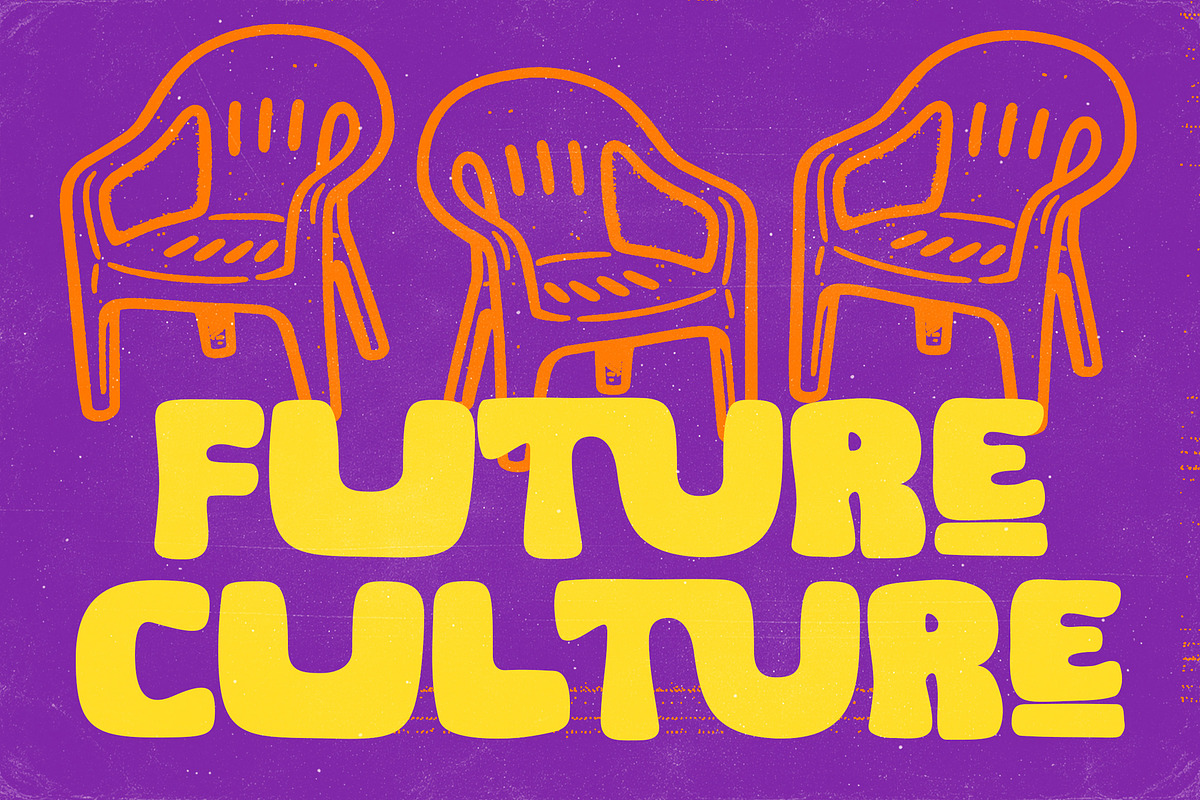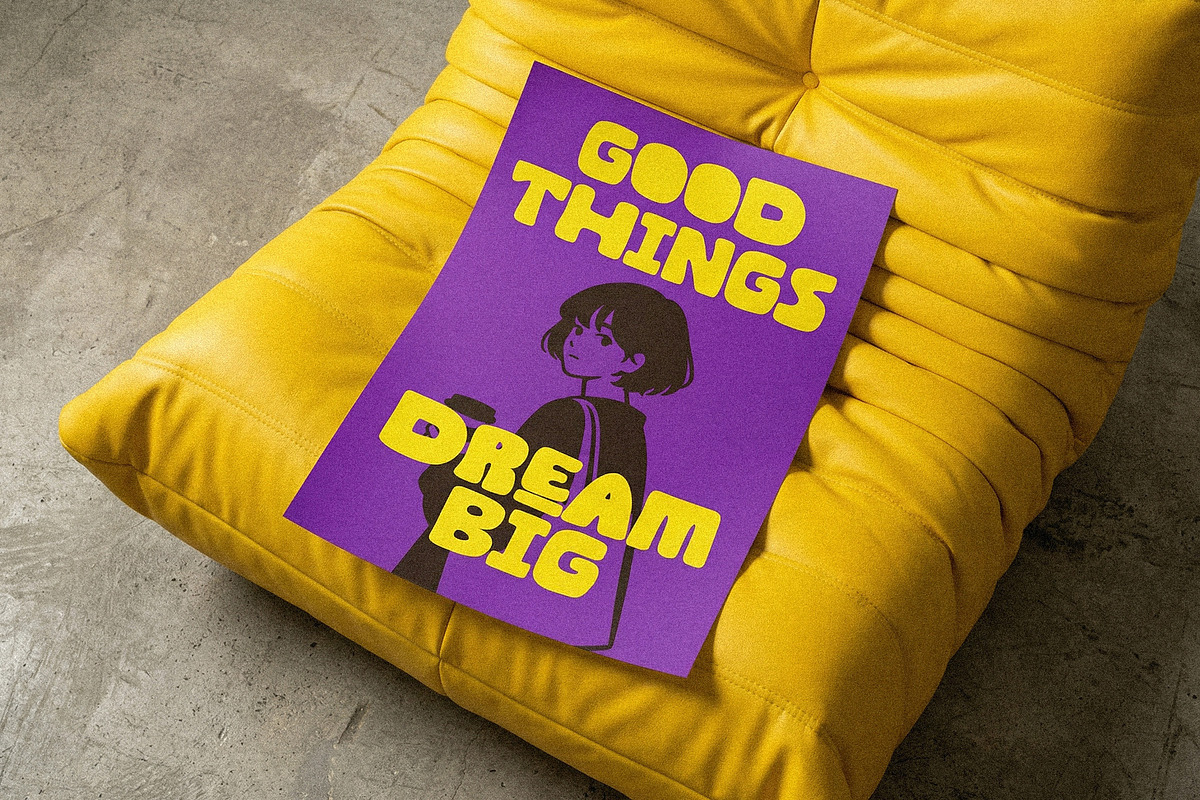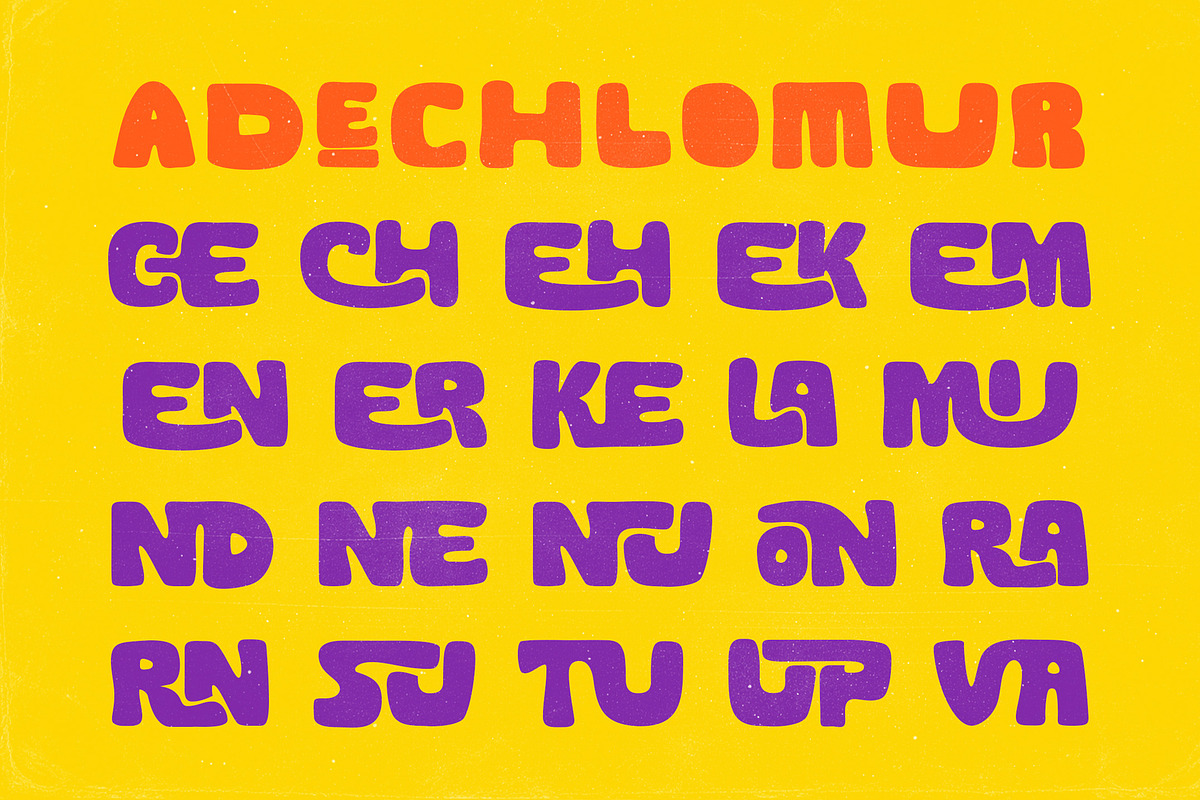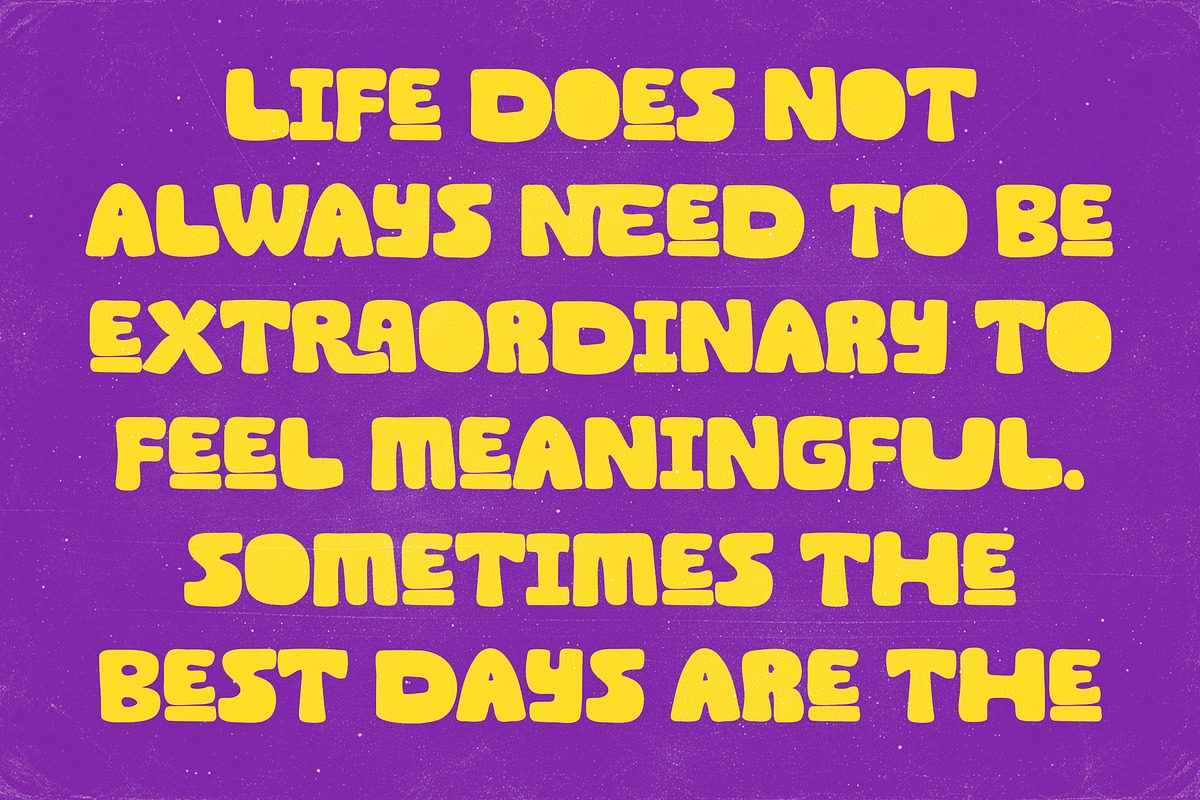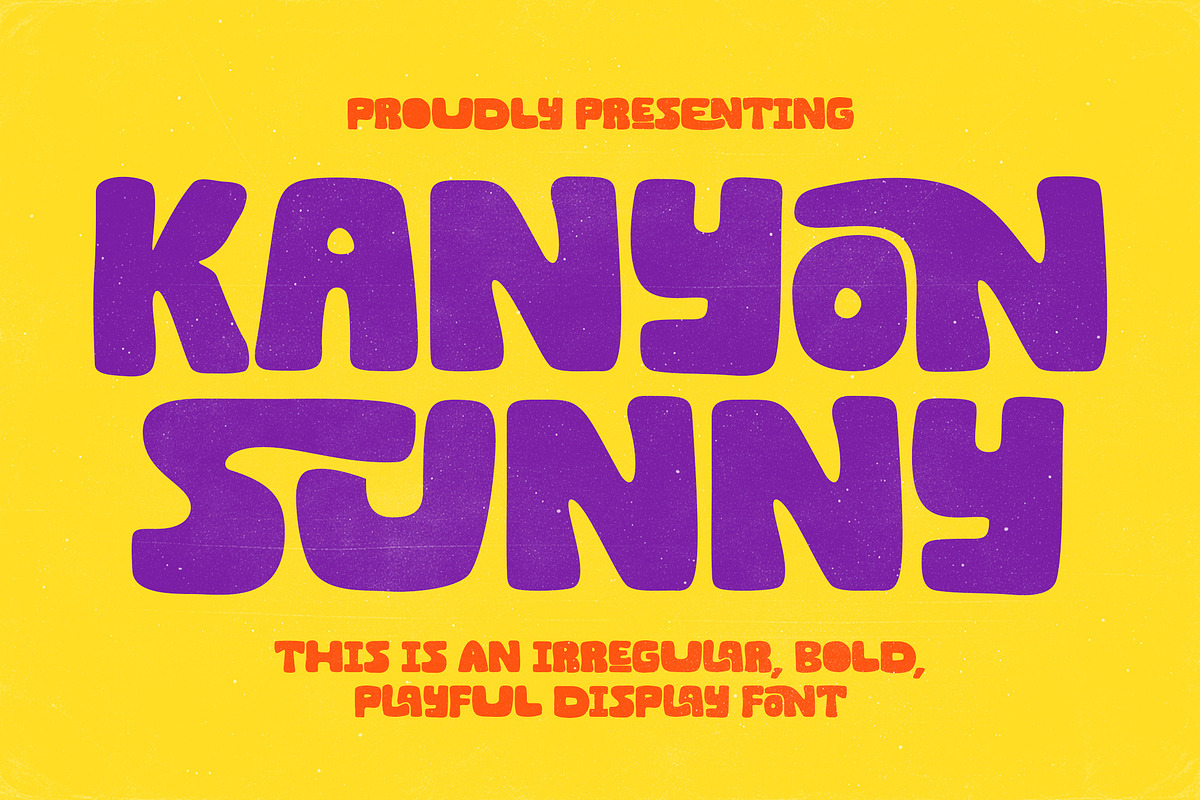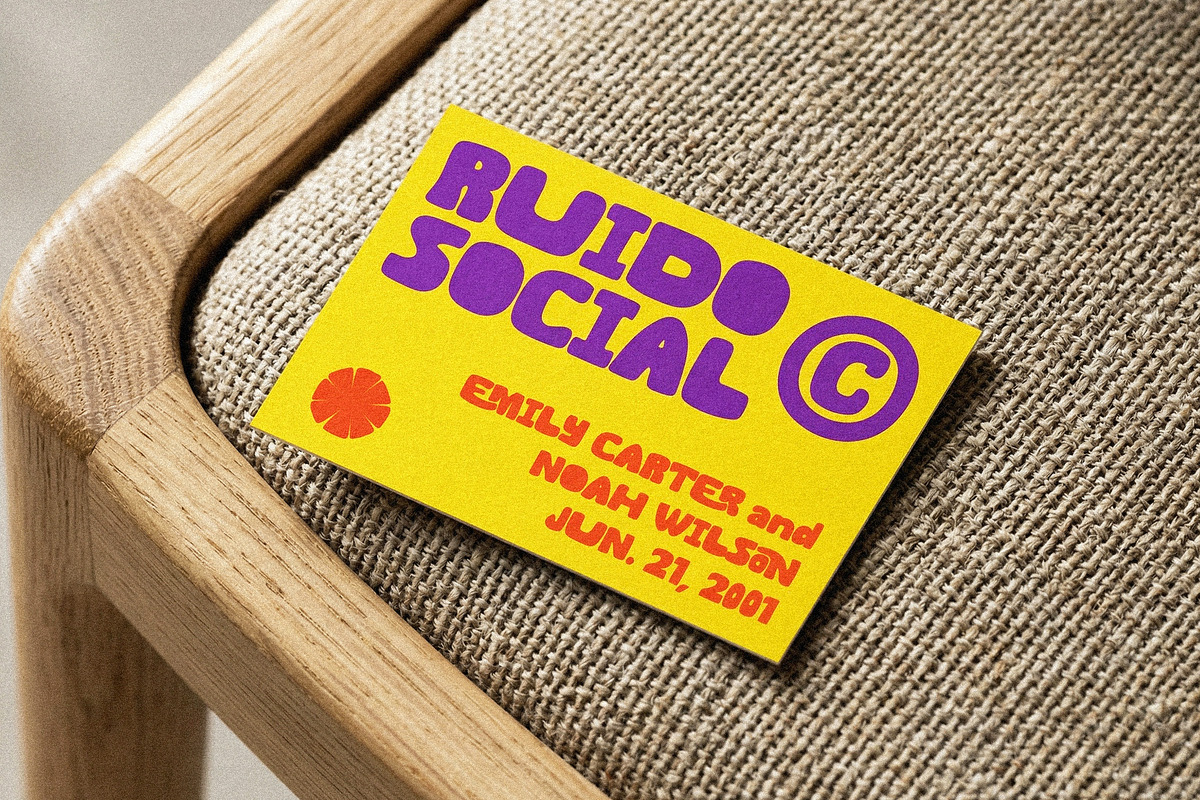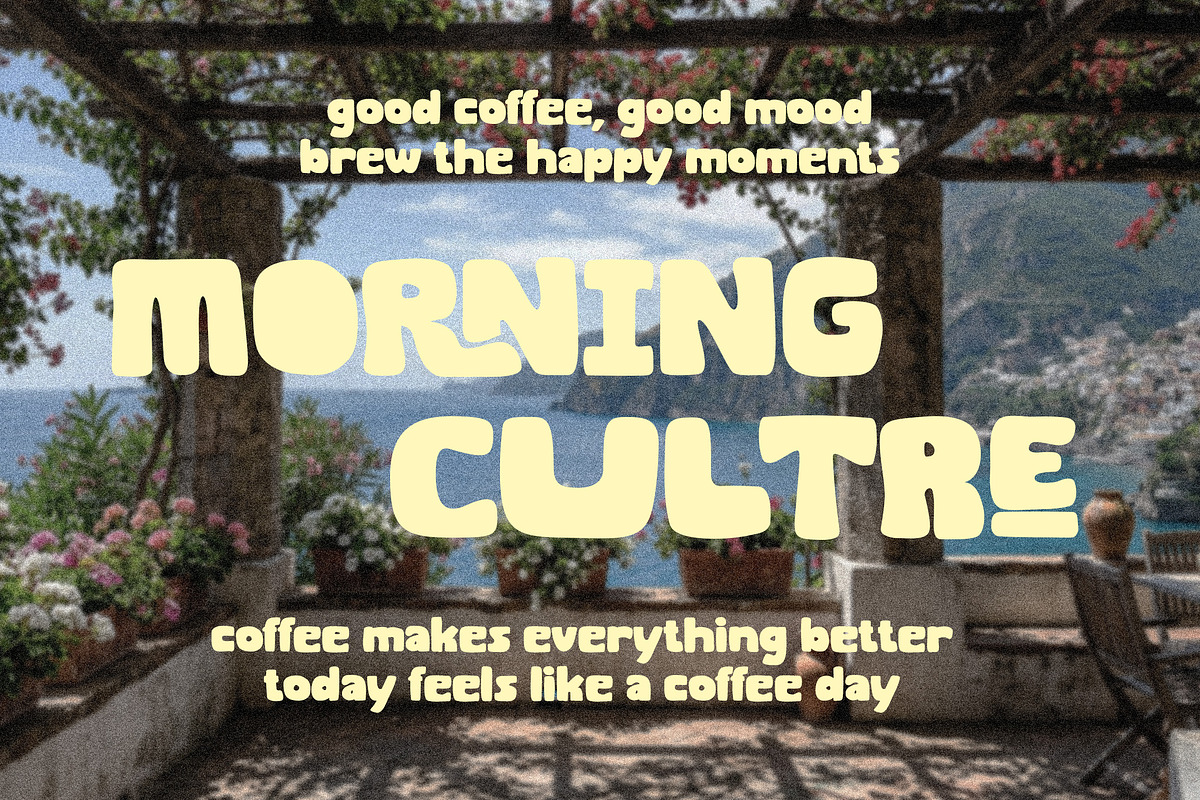
Kanyon Sunny
Hi! Let me introduce you to my latest font creation, Kanyon Sunny!
Kanyon Sunny is a bold, cheerful, and characterful display font. Its bold, irregular, rounded letterforms give it a cheerful, relaxed, and playful feel. This font is perfect for designs that want to be eye-catching and energetic, such as posters, product packaging, branding, poster titles, children's designs, and even social media content.